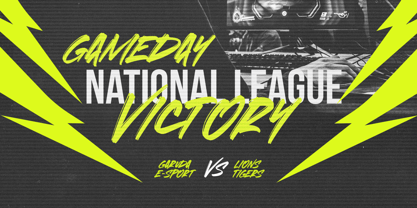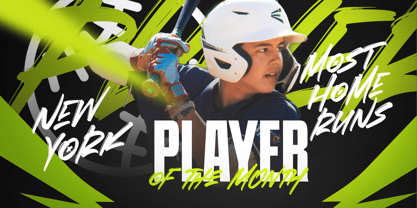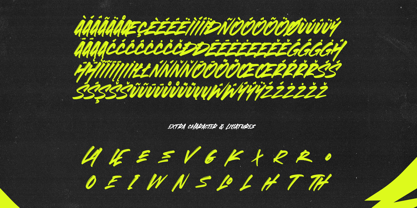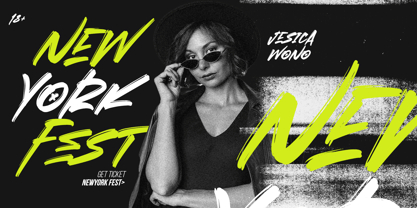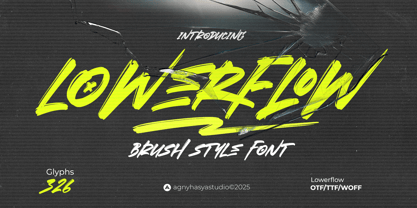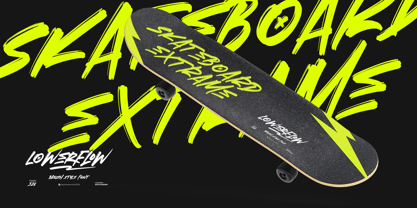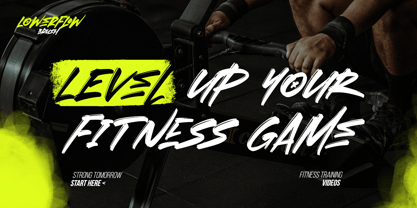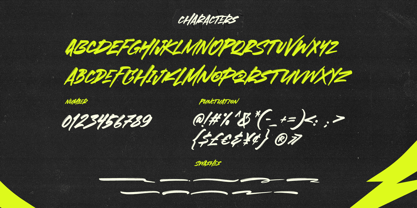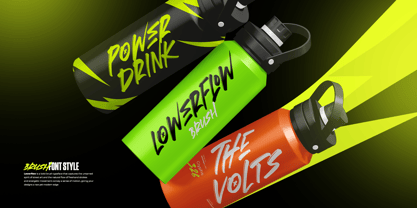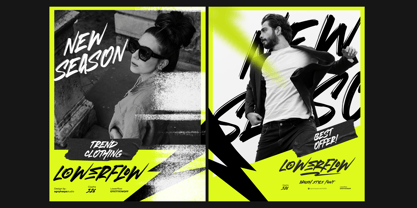
Lowerflow
La familia tipográfica Lowerflow fue diseñada por Firman Maulana y publicada por Agny Hasya Studio. Lowerflow contiene 1 estilos.
Lowerflow is a bold brush typeface that captures the untamed spirit of street art and the natural flow of freehand strokes
and energetic movement convey a sense of motion, giving your designs a raw yet modern edge.
Perfect for projects that need a casual style, Lowerflow great fit on logos, apparel, packaging, posters, social media, and more.
Each letter feels handcrafted, adding personality and a human touch to your creative work.
With multilingual support, Lowerflow is designed to cross borders and communicate globally.
Whether you’re aiming for a gritty urban vibe or a playful tone, this font adapts with style.